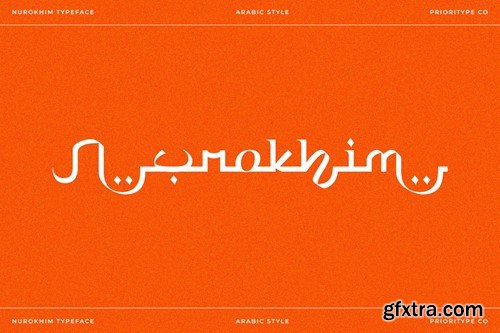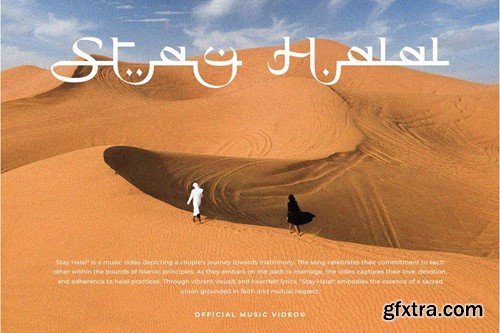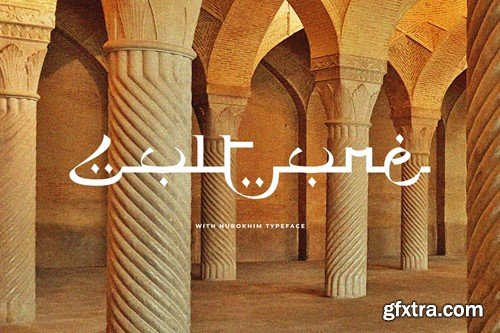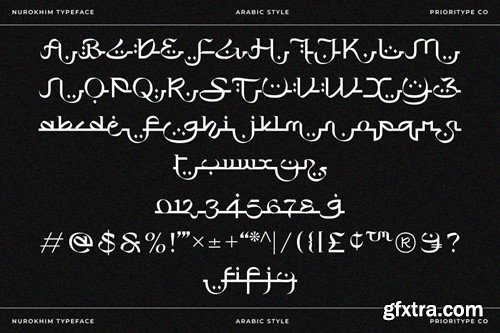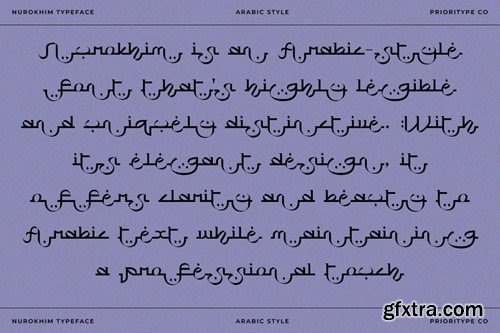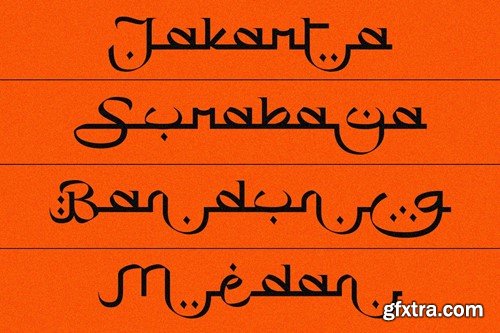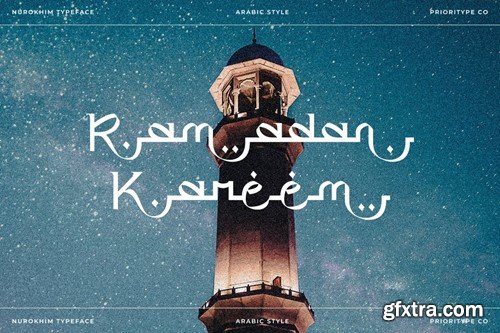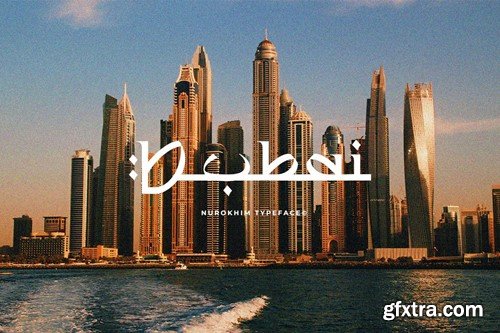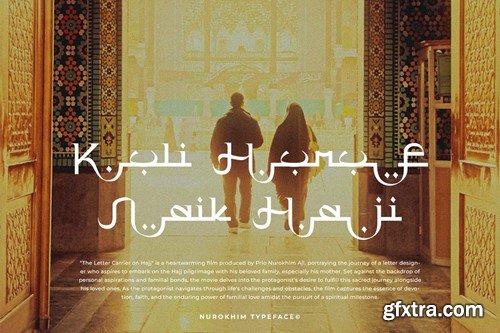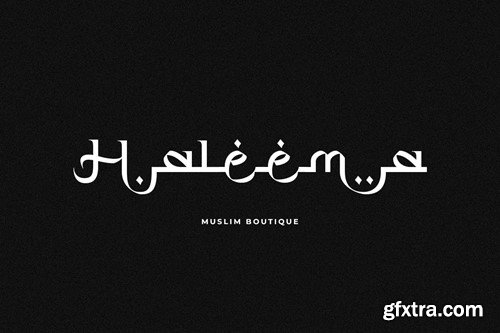
Nurokhim – Arabic Style Font
Nurokhim - Arabic Style Font
Nurokhim is an Arabic-style font that's highly legible and uniquely distinctive. With its elegant design, it offers clarity and beauty to Arabic text while maintaining a professional touch, making it suitable for various design purposes such as logo design, branding, posters, and more.
Features: Uppercase, Lowercase, Numeral, Punctuation, Multilingual, Alternates & Ligatures.